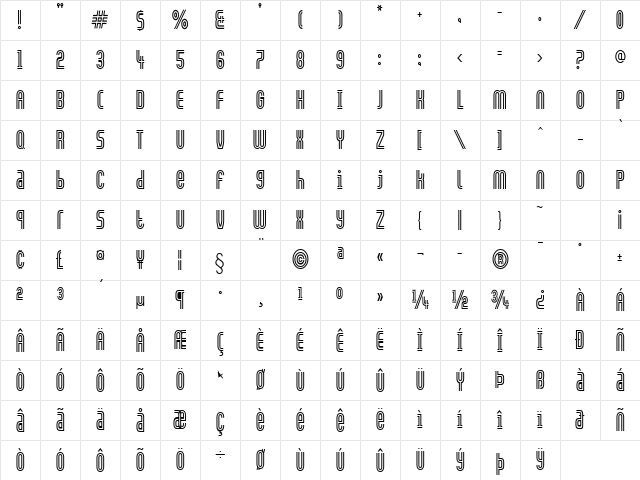
Arch-Condensed Normal
Design Context for Arch-Condensed
Arch-Condensed is a composed and adaptable typeface that performs quietly and consistently across a wide range of design contexts. Its narrow stance lets it pack a punch even in space-constrained designs.
Pro Tip: Use Arch-Condensed in both headline and body roles to test its range before committing to a single application.